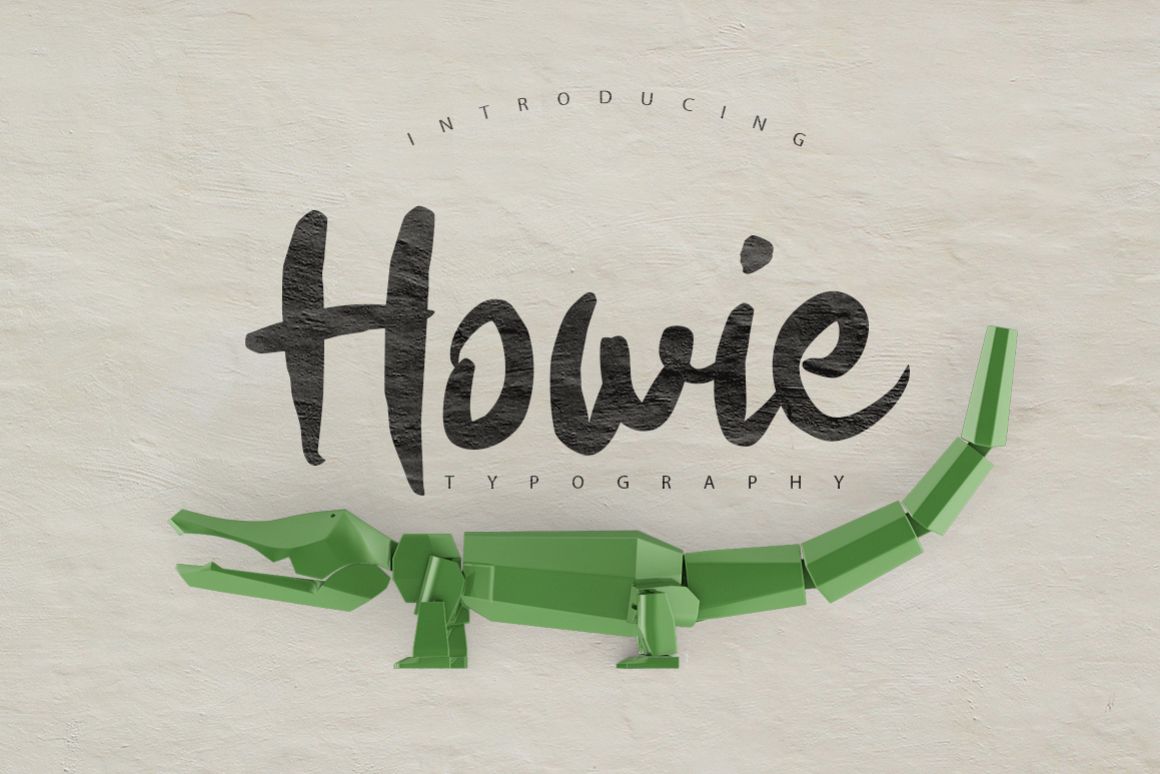
Howie Typeface
Howie is a playful brush font.
The font has been crafted completely on paper. After ever letter was perfected to create a coherent and smooth looking font, the font where digitized and smoothed over until they where perfect.